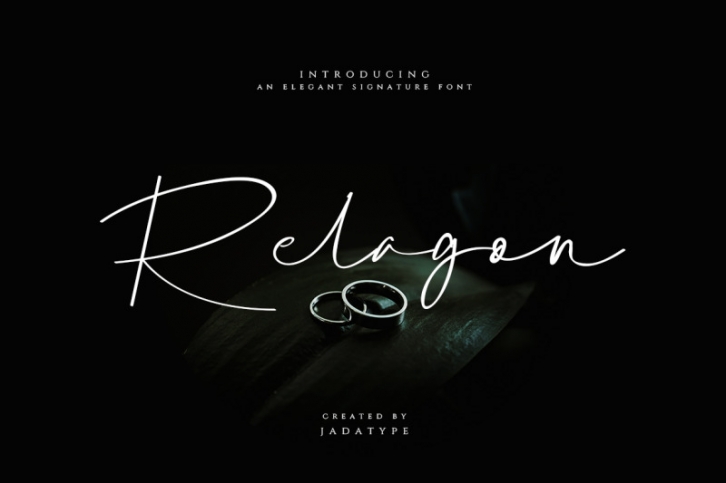
Relagon is a signature font with an elegant impression. can be applied to graphic designs such as ads, book covers, magazines, or used as logotypes, branding, and others. Contains characters with standard English and some letters that support multilingual. can be installed in applications such as adobe family or affinity.